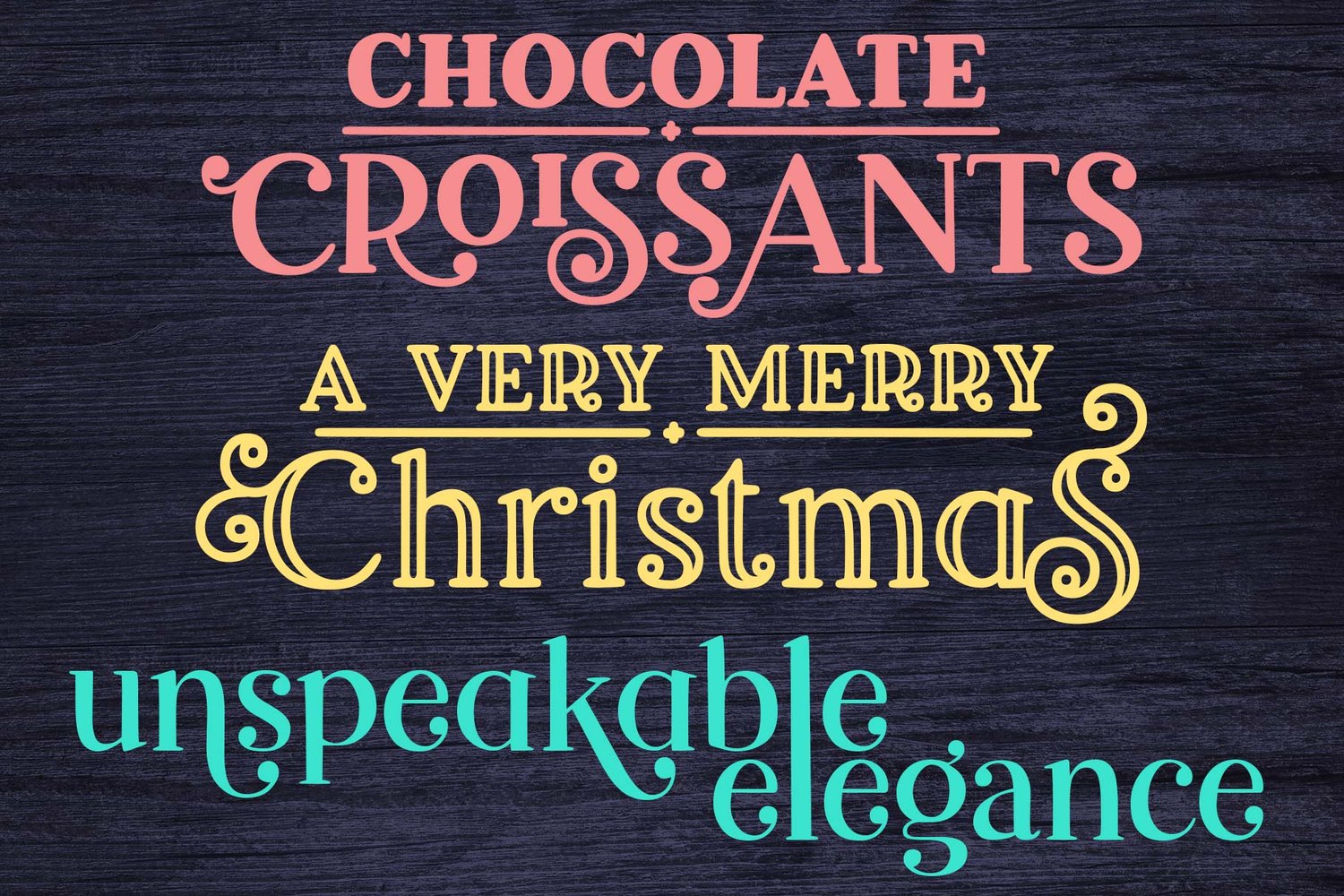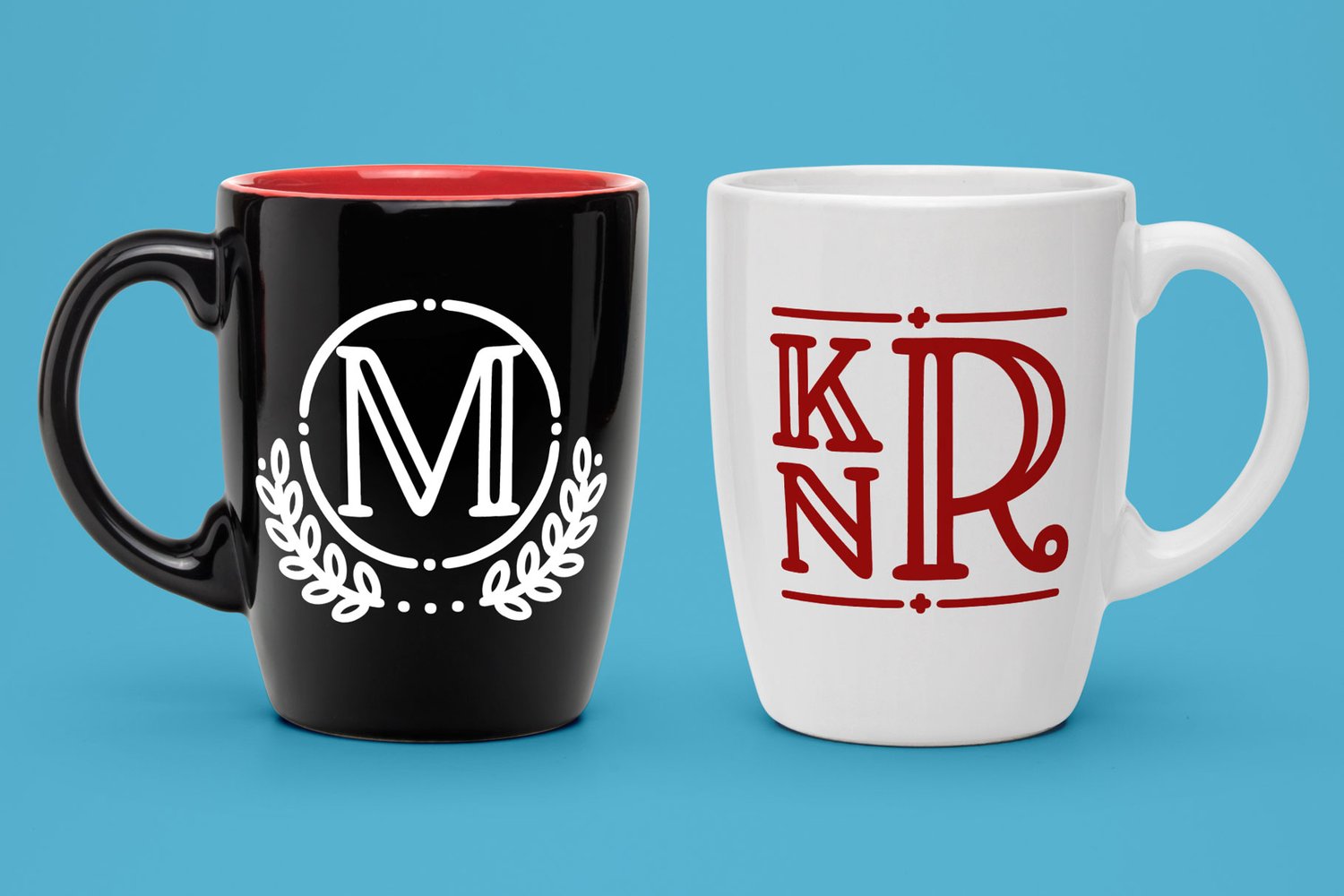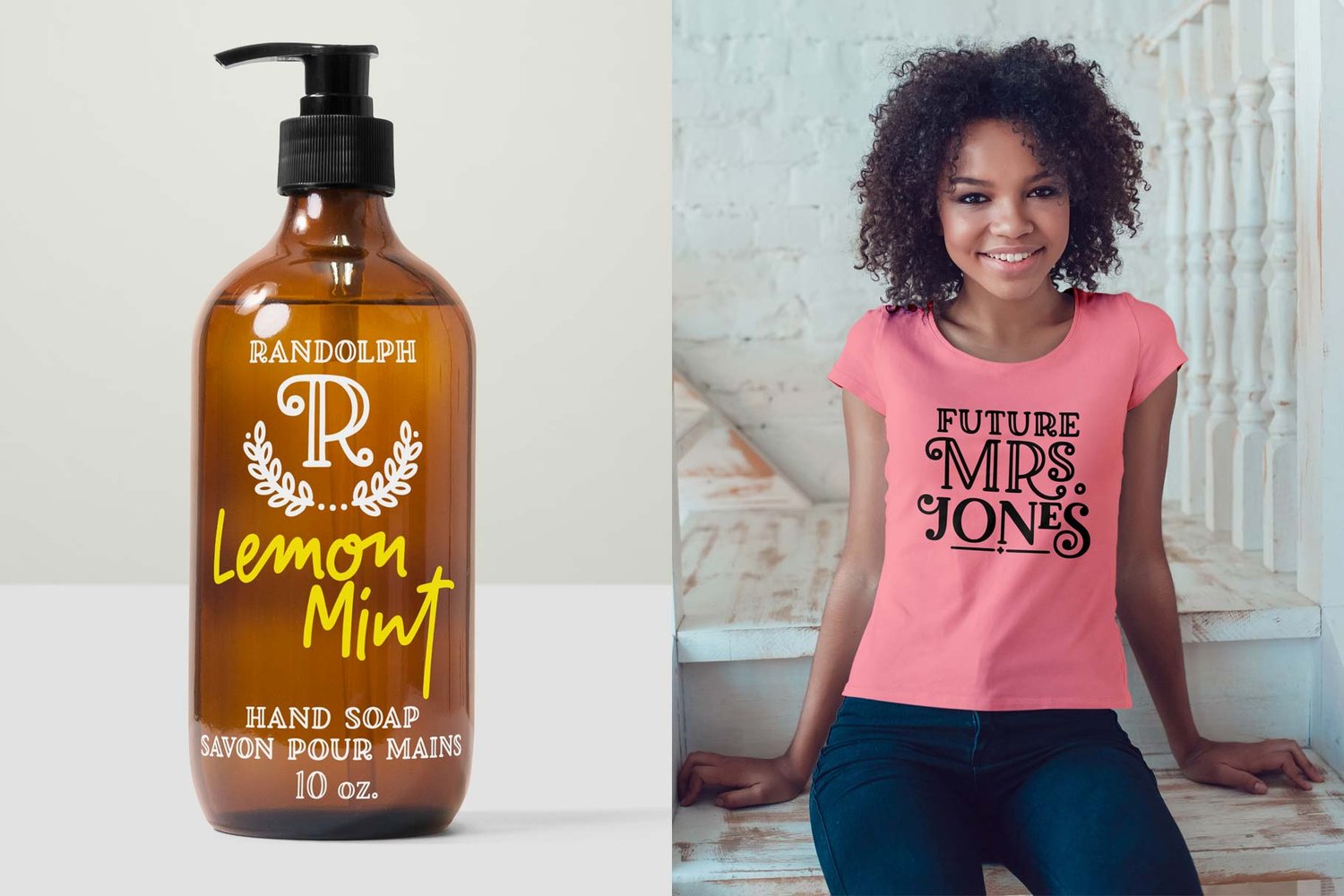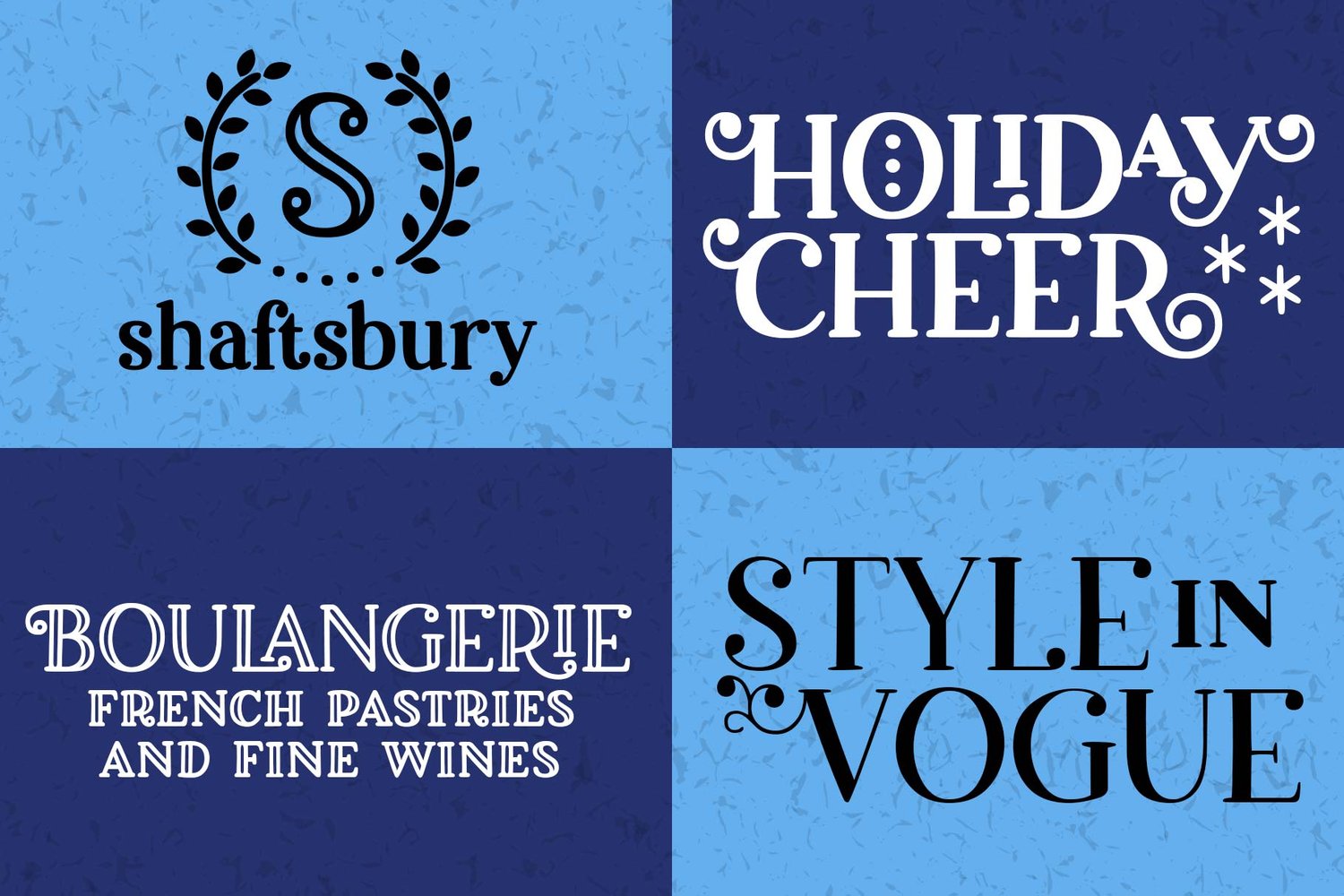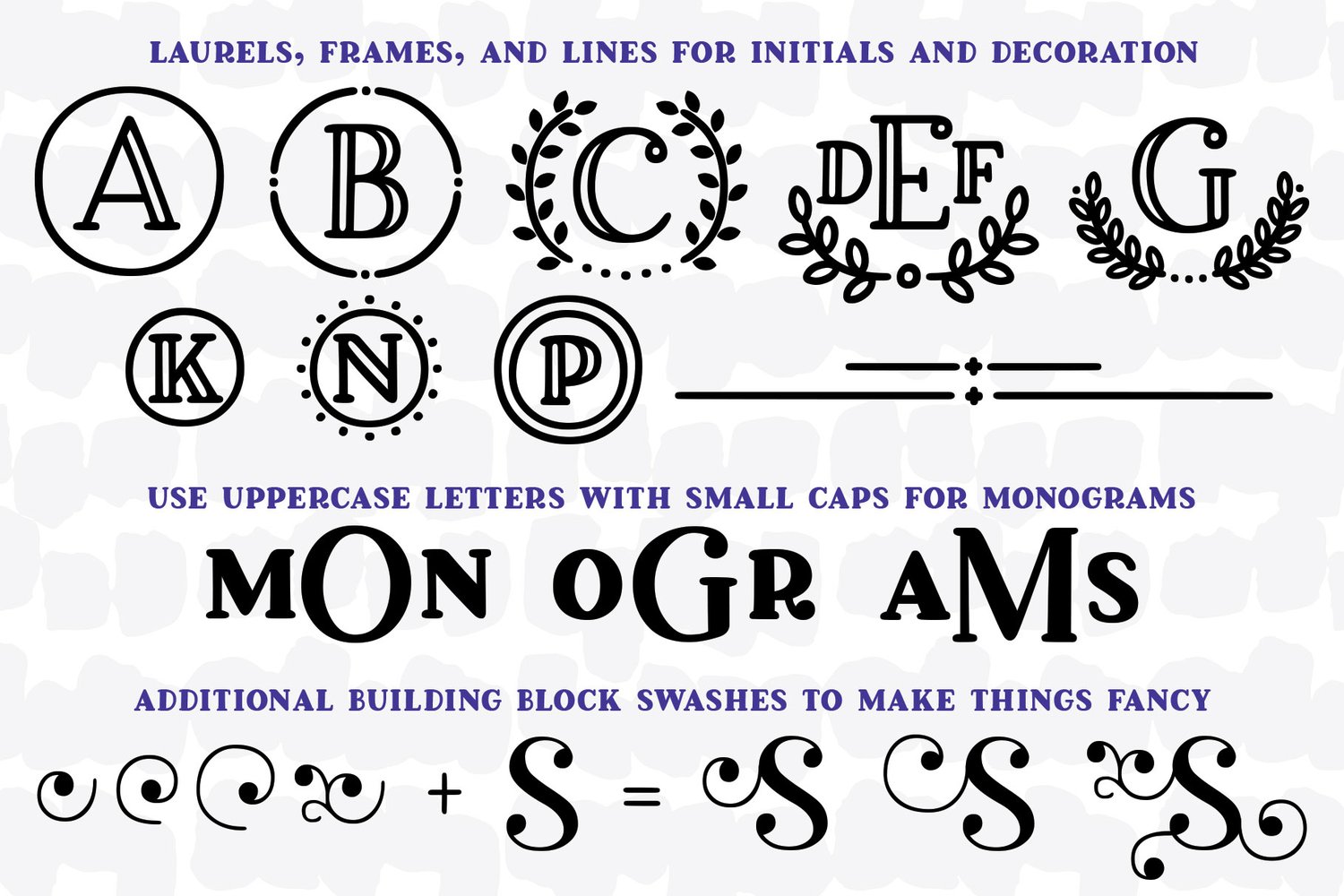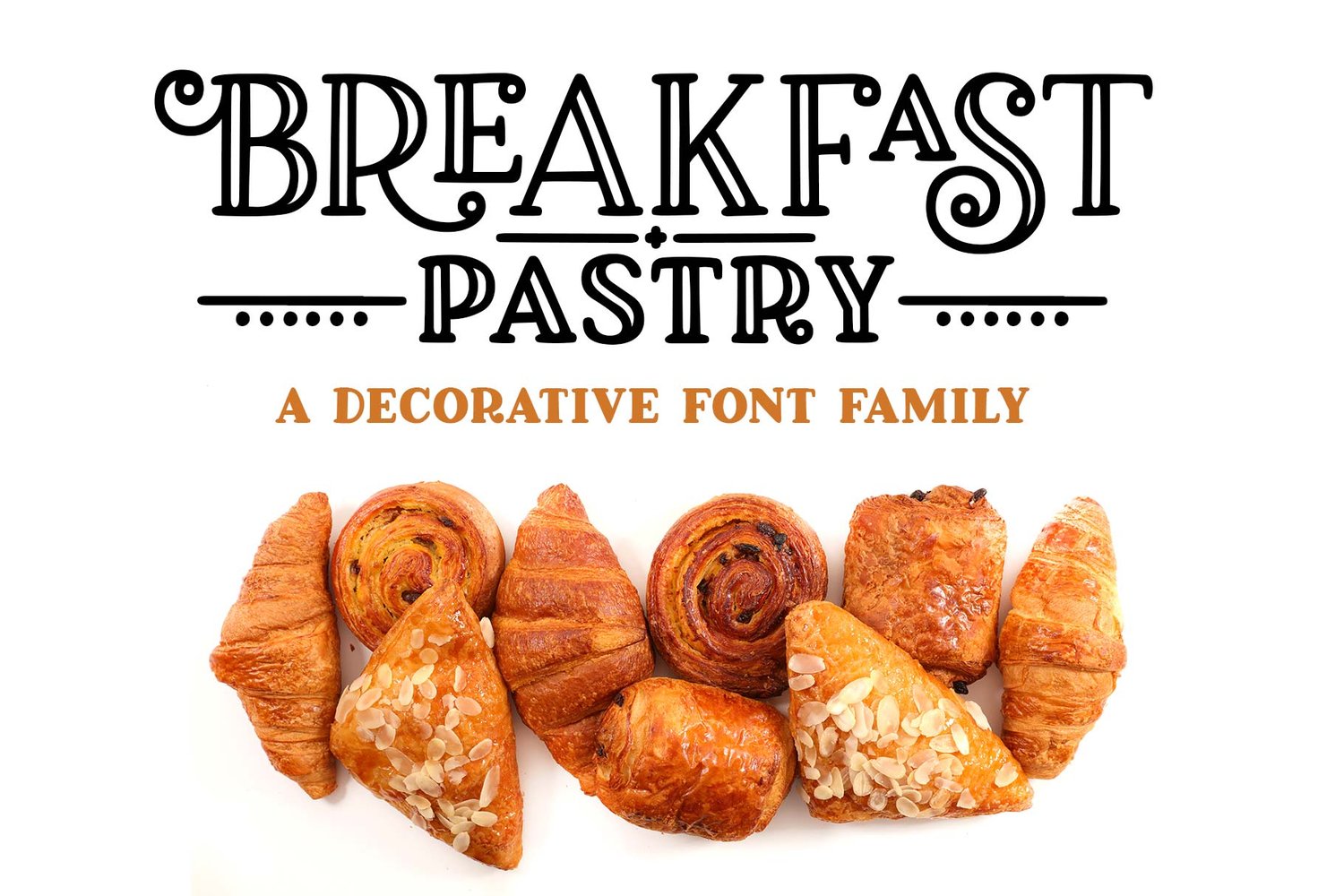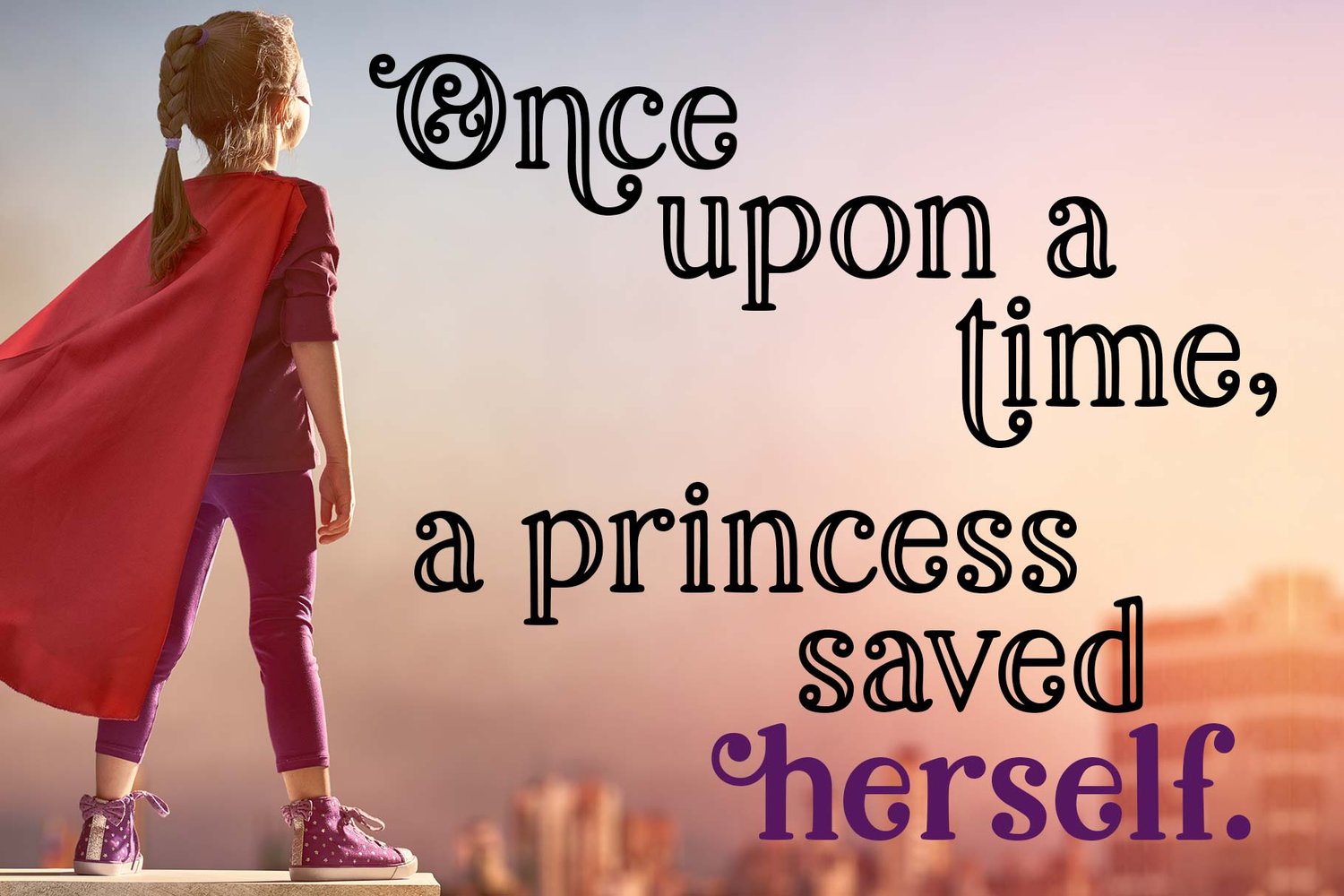
Breakfast Pastry
I've been thinking for a while about making a serif font with ball terminals: big fun round ends to the letters anywhere I can squeeze them in. So I made Breakfast Pastry! I started with a hand-drawn set of basic letters, then went hog-wild making alternates and ligatures galore with fun swirls, curls, and even more balls. TONS OF BALLS!
I've cleaned the letters up significantly to make them smooth and easy for any cutting or printing you may want to do, but I've also left in some of the hand-drawn character so that the fonts are warmer and not too formal.
Then I took the first font, and made a second solid version without the cutouts. After that I thought: I tend to make plumper fonts ... why not make an even thinner version? So I did! All three versions have the same character set (over 700 glyphs total), which means they all have the same extras and alternates.
All three fonts have over 300 extended Latin characters for language support, as well as over 200 bonus items: alternate letters, letters with swashes, two-letter ligatures, small caps, catchwords, and even some bonus ornaments and elements to make the fonts even more flexible. (After all, if one swash on a letter is good, two or three might be great!)
All three Breakfast Pastry fonts include:
- Basic character set (A-Z, a-z, 0-9, tons of punctuation)
- Over 300 extended Latin characters for language support
- 230 extras! Alternates, ligatures, catchwords, small caps, and ornaments